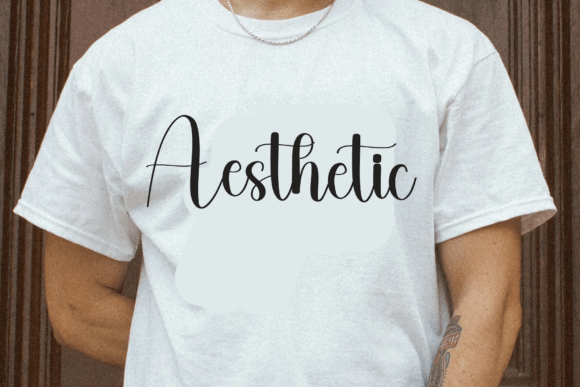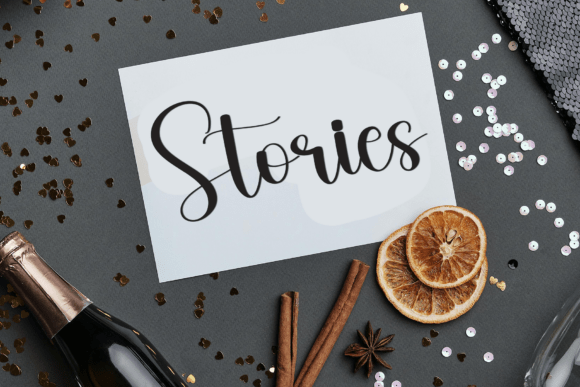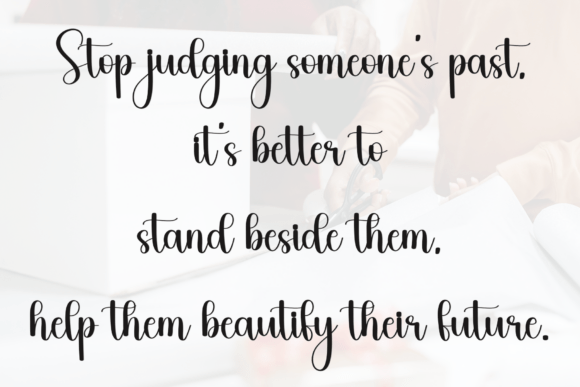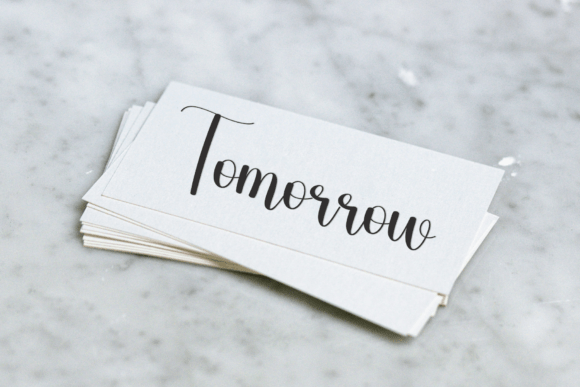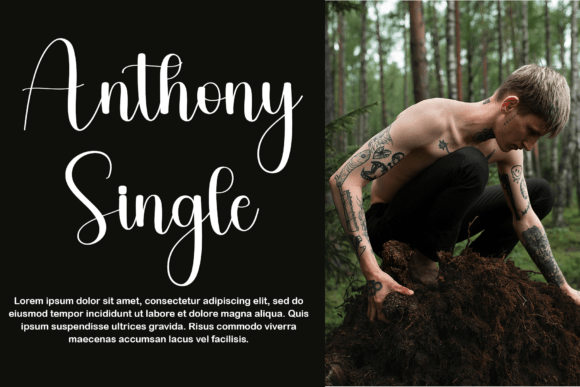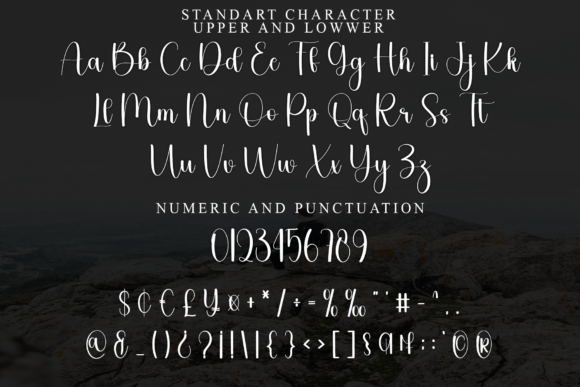
Introducing Deadline Font: Elevate Your Designs with a Touch of Elegance
In the world of typography, fonts play a crucial role in conveying the tone and personality of a design. For designers and crafters looking for a modern, yet personal touch, Deadline Font is an excellent choice. This beautiful, handwritten script font is designed to bring a sense of elegance and smoothness to your projects, making it perfect for a wide range of applications.
The Characteristics of Deadline Font
Deadline Font boasts a smooth, flowing style that is both modern and sophisticated. Its rounded curves and easy readability make it an ideal choice for various design projects, including planners, branding materials, quotes, and social media graphics. The font’s unique blend of elegance and approachability ensures that your designs stand out while maintaining a friendly, approachable feel.
Despite Its Name, Deadline Font is Relaxed and Handcrafted
At first glance, the name “Deadline Font” might suggest a sense of urgency or formality. However, this font is designed to give your designs a relaxed, handcrafted feel. The rounded edges and smooth lines create a sense of fluidity, making Deadline Font perfect for designers who want to convey a sense of personality and warmth in their work. Whether you’re creating planners, branding materials, or social media graphics, Deadline Font helps you achieve a neat and personal look.
Deadline Font is a versatile typeface that caters to the needs of both designers and crafters. Its smooth, flowing style makes it an excellent choice for:
- Planners: Add a personal touch to your planners and organizers with Deadline Font. Its readability and elegance make it perfect for titles, headings, and body text.
- Branding: Use Deadline Font to create a unique and memorable brand identity. Its modern, yet approachable style ensures that your brand stands out.
- Quotes: Add a touch of sophistication to your quotes and inspirational messages with Deadline Font. Its elegant style makes it perfect for sharing motivational content.
- Social Media Graphics: Elevate your social media graphics with Deadline Font. Its smooth, flowing style works beautifully for titles, captions, and body text.
Why Choose Deadline Font?
- Elegance: Deadline Font offers a unique blend of modernity and elegance, making it perfect for designers looking for a sophisticated typeface.
- Readability: The font’s smooth, flowing style ensures excellent readability, even at smaller font sizes.
- Versatility: Deadline Font is suitable for a wide range of design projects, from planners and branding materials to quotes and social media graphics.
- Handcrafted Feel: Deadline Font provides a relaxed, handcrafted feel that’s perfect for designers who want to add a personal touch to their work.
Deadline Font is an excellent choice for designers and crafters looking for a modern, elegant typeface with a personal touch. Its smooth, flowing style, rounded curves, and excellent readability make it perfect for a wide range of design projects. Whether you’re creating planners, branding materials, quotes, or social media graphics, Deadline Font is sure to elevate your designs and add a touch of sophistication. So, why wait? Explore the possibilities of Deadline Font and take your designs to the next level.